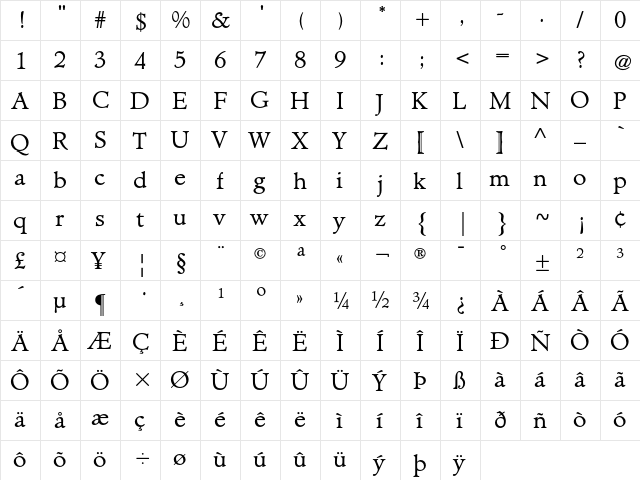
Administer AT Book Regular Font Preview
Administer AT Book Regular
Design Context for Administer AT Book Typeface
Administer AT Book is a composed and adaptable typeface that performs quietly and consistently across a wide range of design contexts.